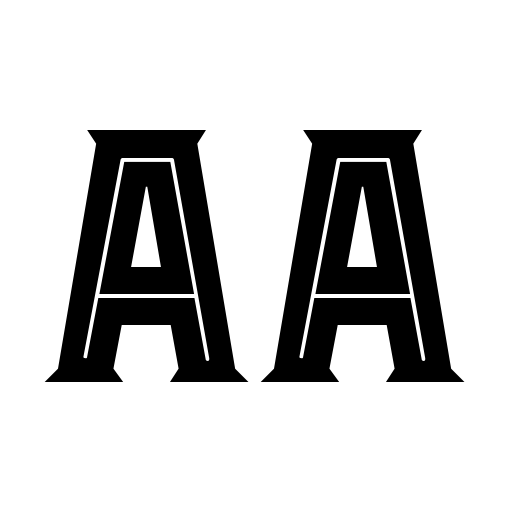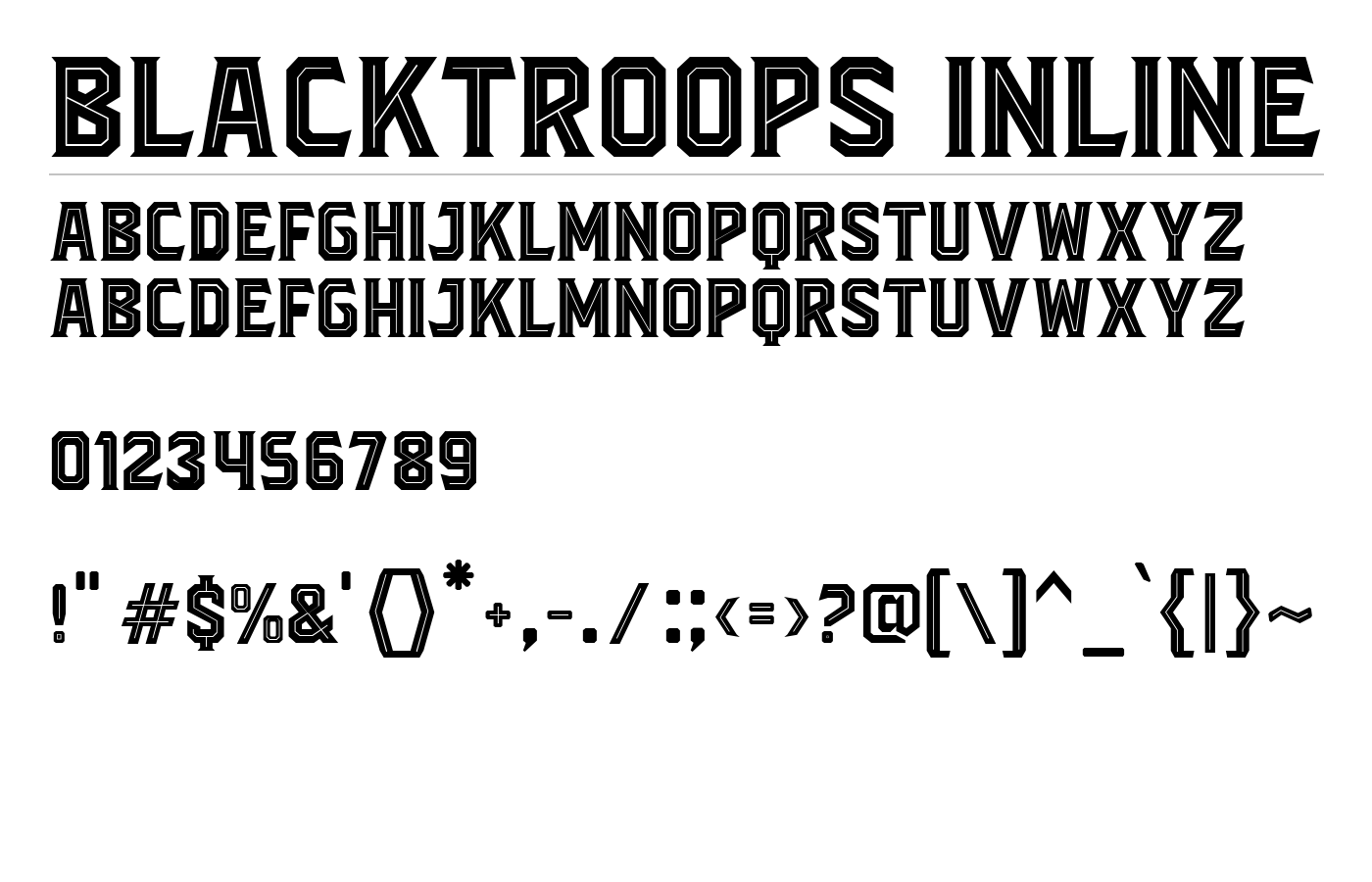
Blacktroops Inline is a bold, condensed sans serif font notable for its strong geometric structure and inline detailing that adds depth and character. Featuring all-caps with sharp edges and high contrast between solid strokes and fine inline accents, it exudes a vintage military or industrial vibe, making it ideal for impactful headlines, logos, packaging, and designs seeking a tough yet stylish presence. Its distinctive letter shapes and solid appearance ensure excellent visibility and a commanding visual impact.
Blacktroops Inline Font
About Blacktroops Inline Font
| Font family | Blacktroops Inline Font |
| Designer | Hendra Pratama (Mikrojihad) |